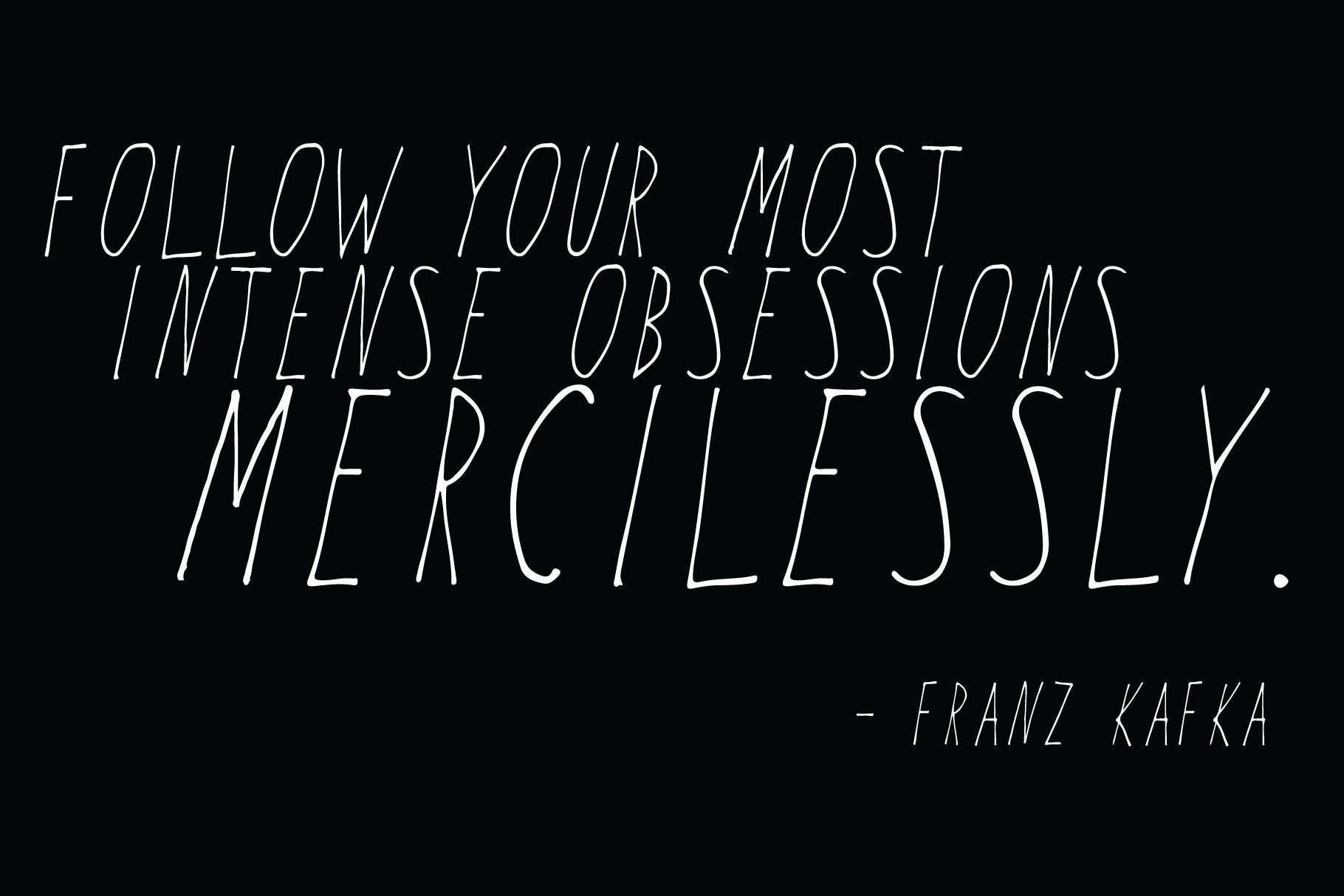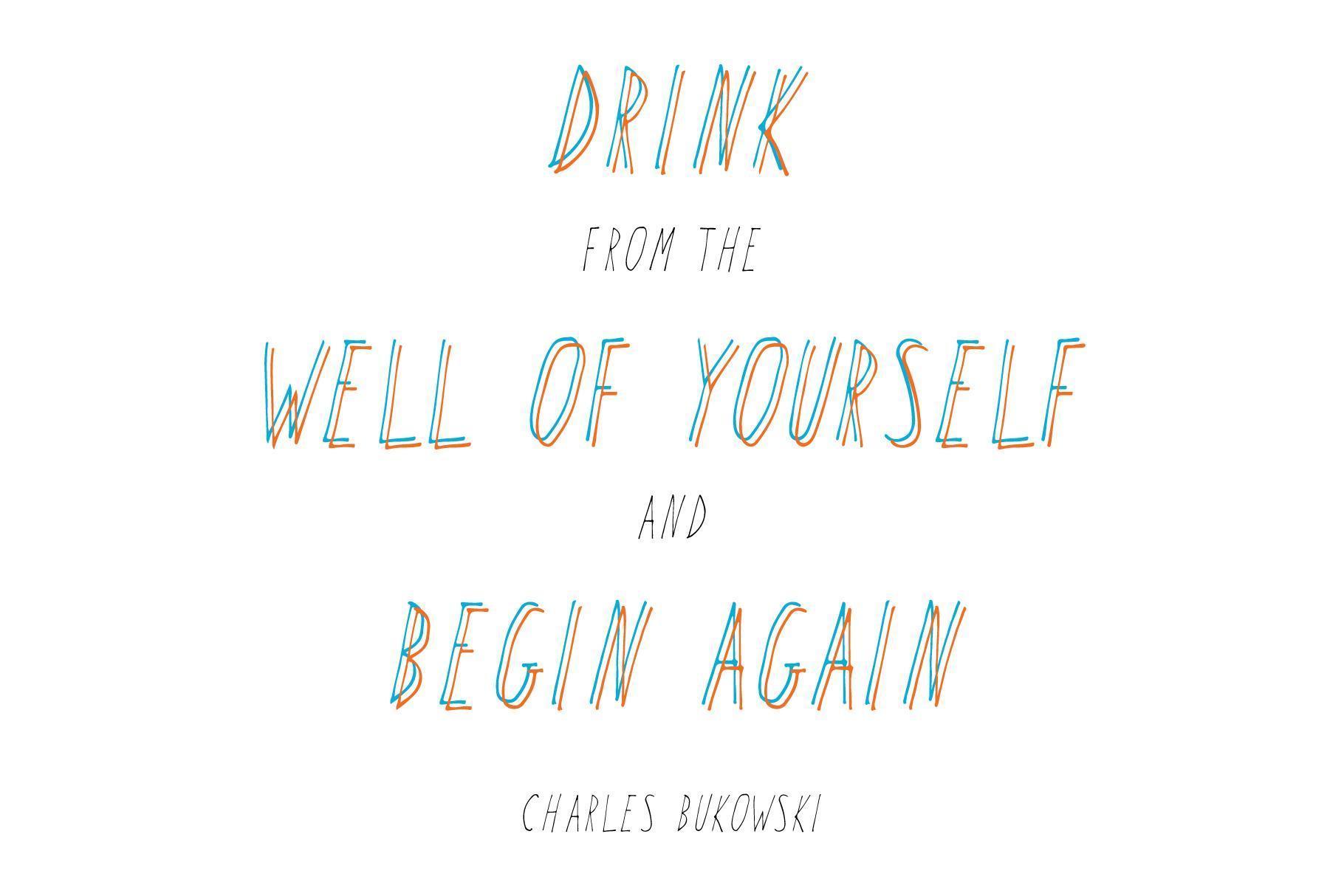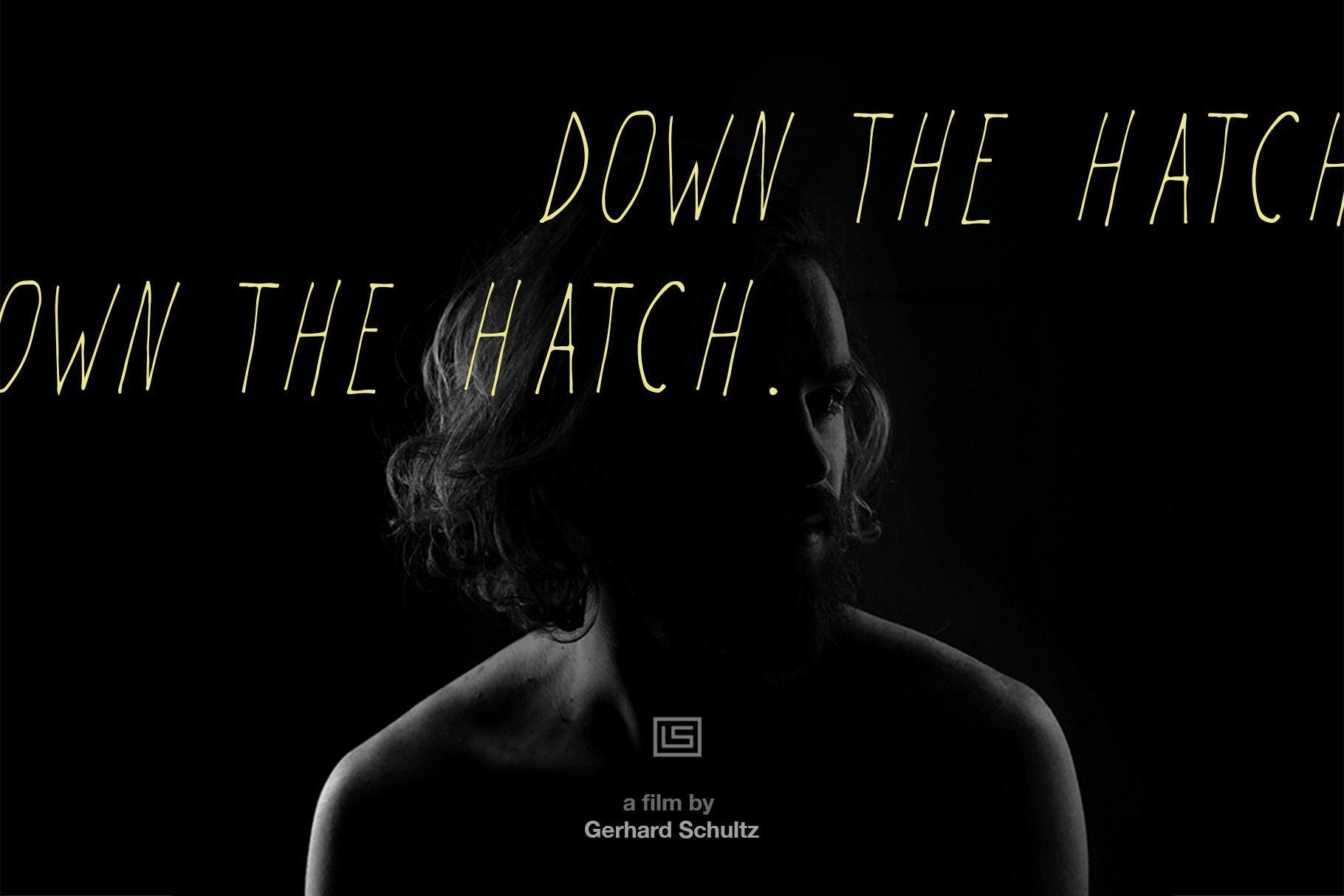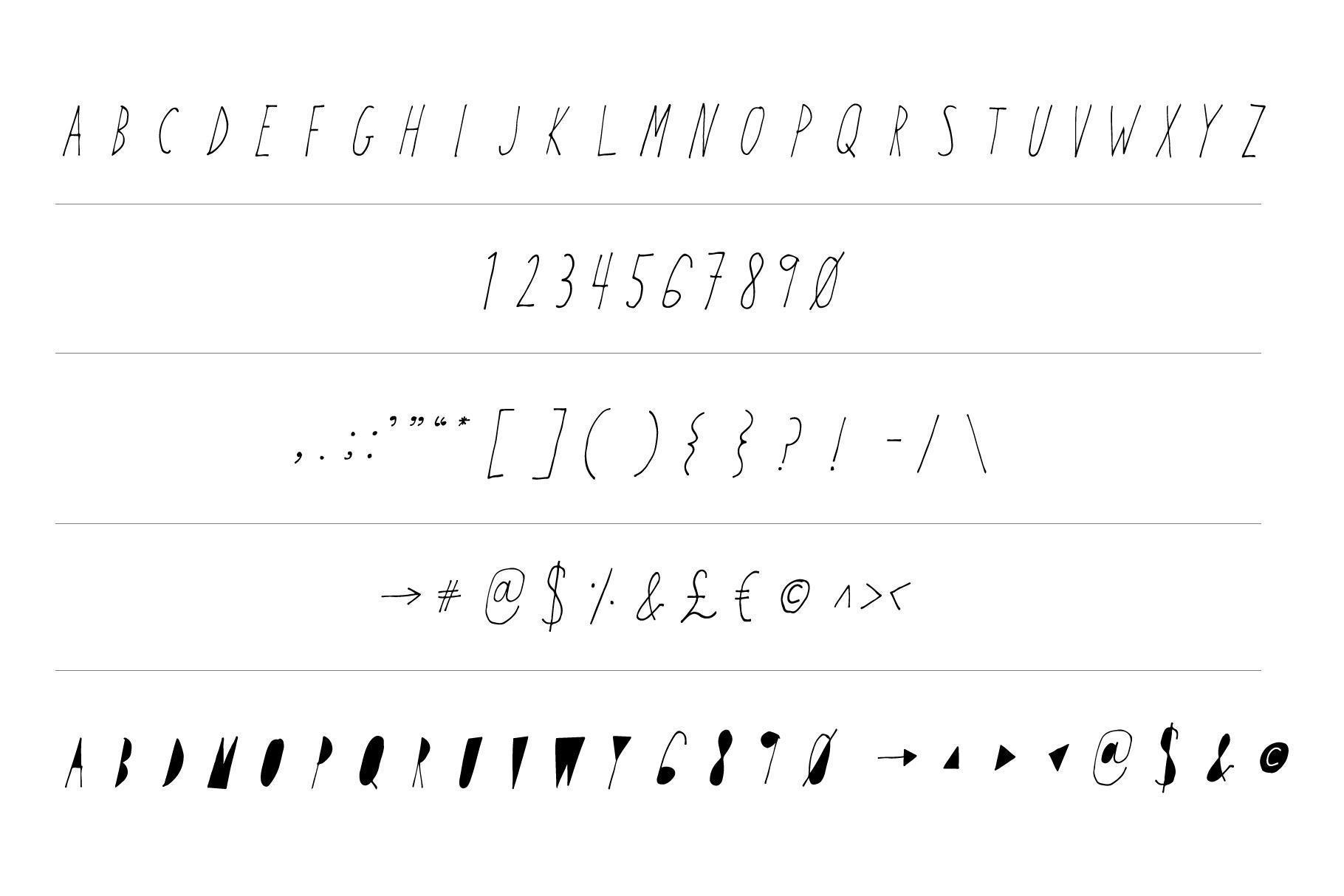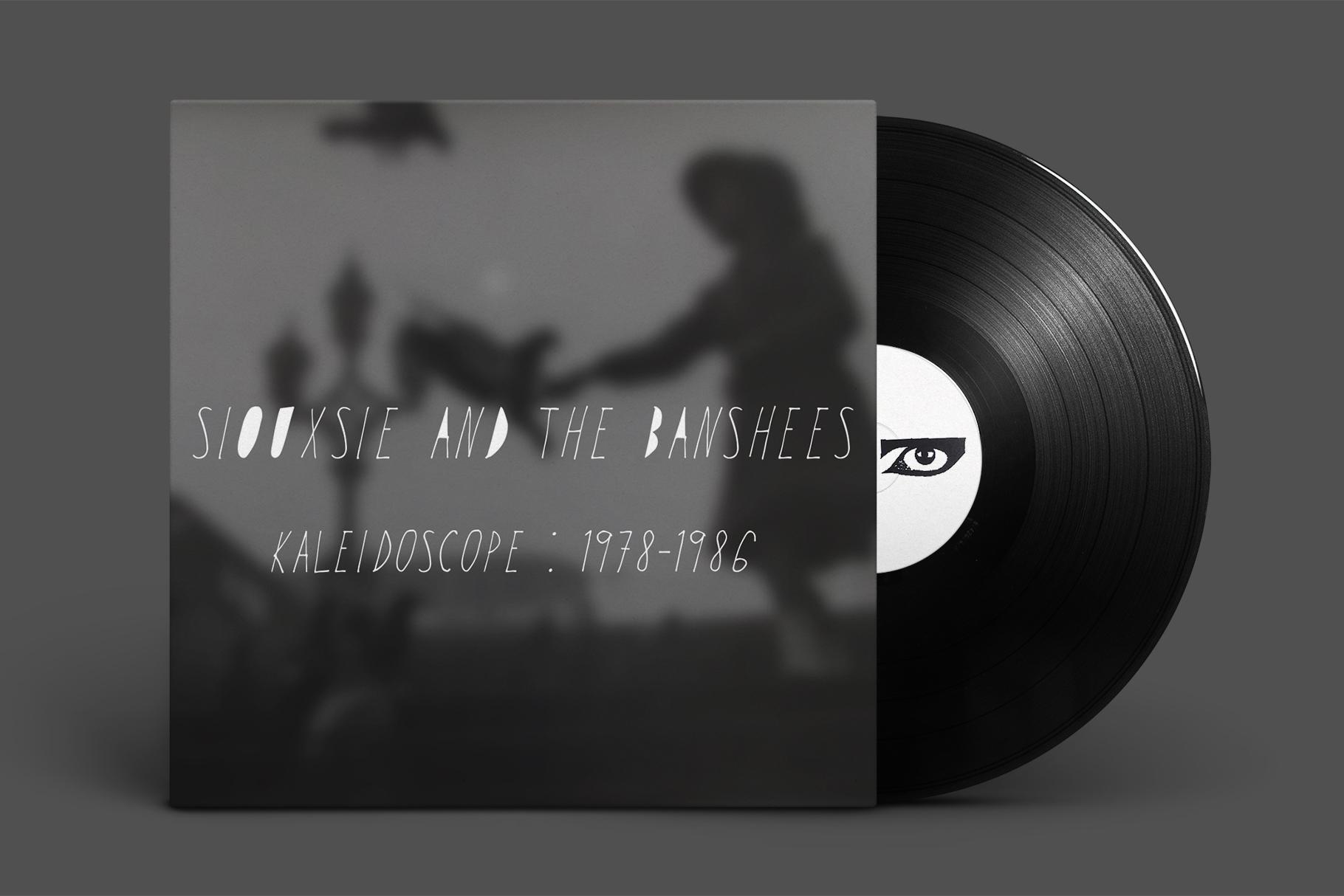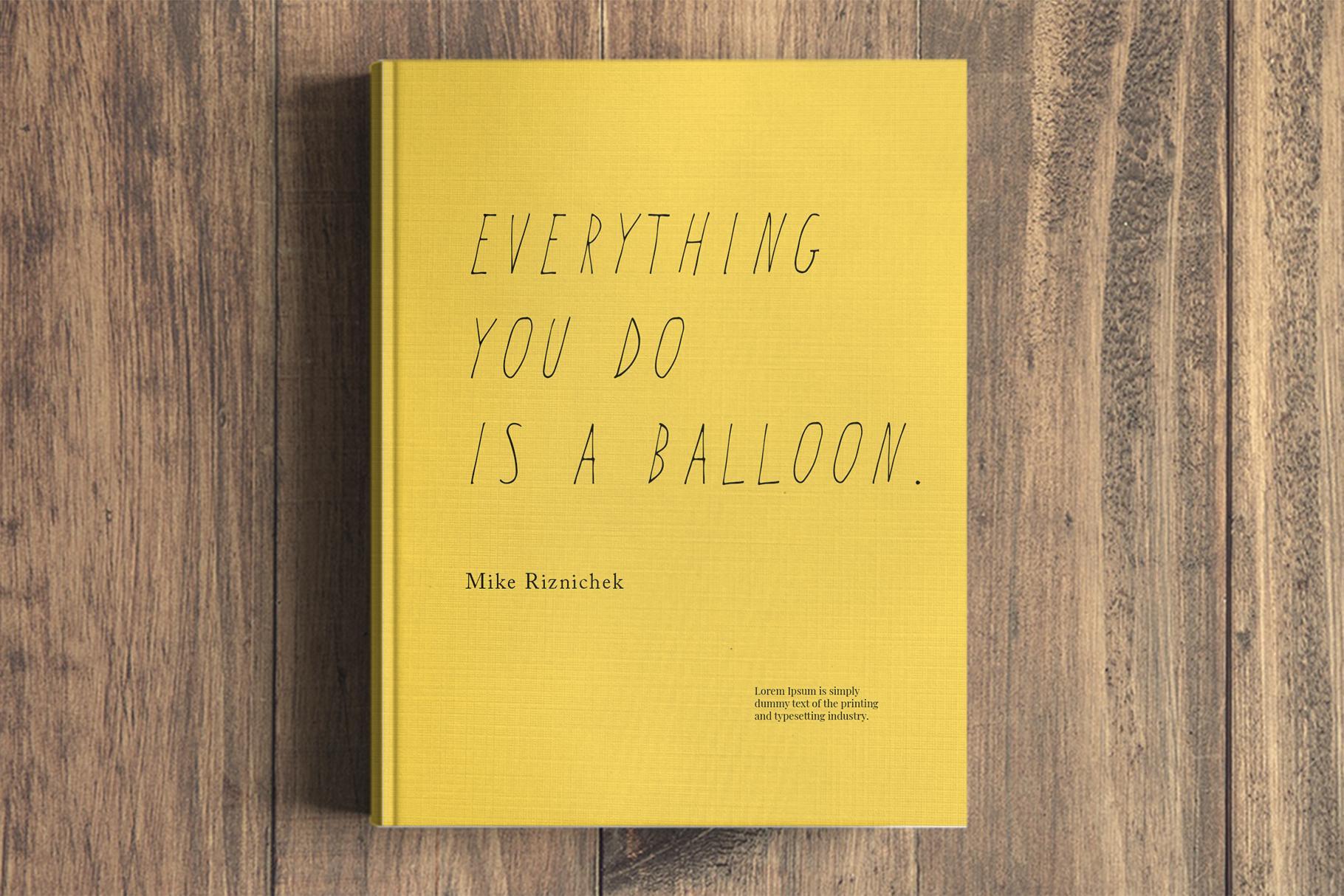
Time Will Tell Display Font
Time Will Tell is a hand-drawn, sans serif display font with a haunting quality that gives text a sense of urgency and a human touch. It’s perfect for album art, book covers, movie posters, advertising and even inspirational quotes. It’s primitive, bleak quality makes a mark and immediately grabs attention.
• A-Z Uppercase
• Numbers
• Punctuation
• Symbols
• Alternate Styles for letters, numbers and symbols